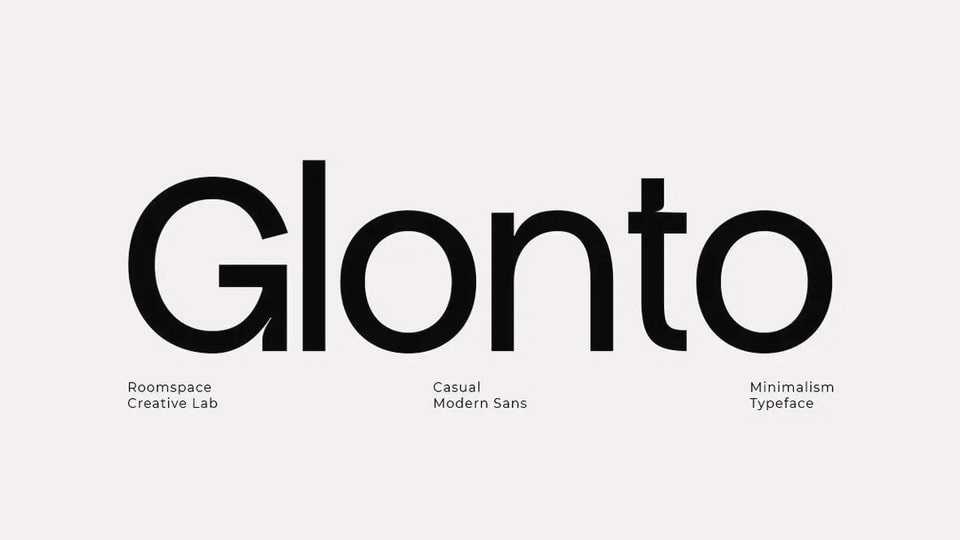
Download Glonto font, a clean and modern sans serif typeface designed with simplicity and elegance in mind. Perfectly suited for branding, UI/UX design, editorial projects, and creative work.